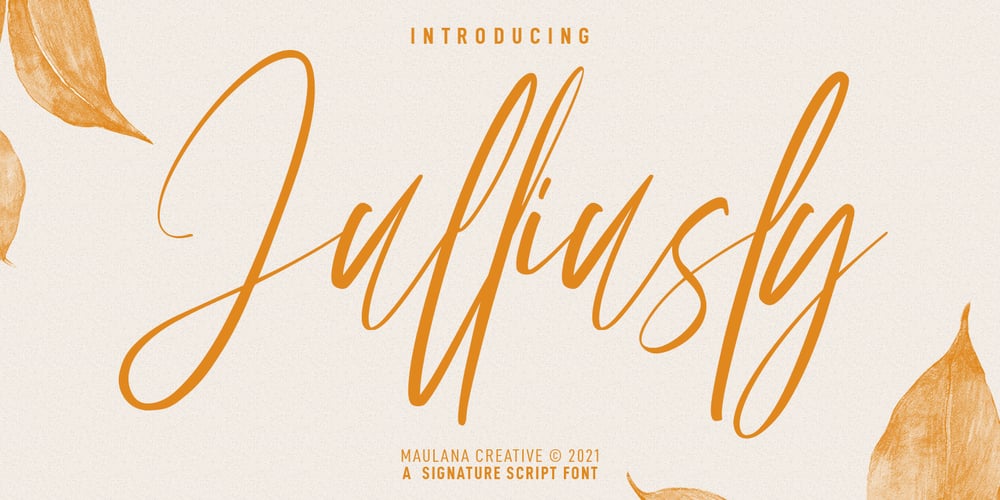
Julliusy
Julliusy font
Julliusy Font Family was designed by Gilang Maulana and published by Maulana Creative. Julliusy contains 1 styles and family package options. Julliusly is a fancy signature script font. With high contrast light stroke, fun character with a bit of ligatures. To give you an extra creative work. Julliusly font support multilingual more than 100+ language. This font is good for logo design, Social media, Movie Titles, Books Titles, a short text even a long text letter and good for your secondary text font with sans or serif. Make a stunning work with Julliusly font. Cheers, MaulanaCreative